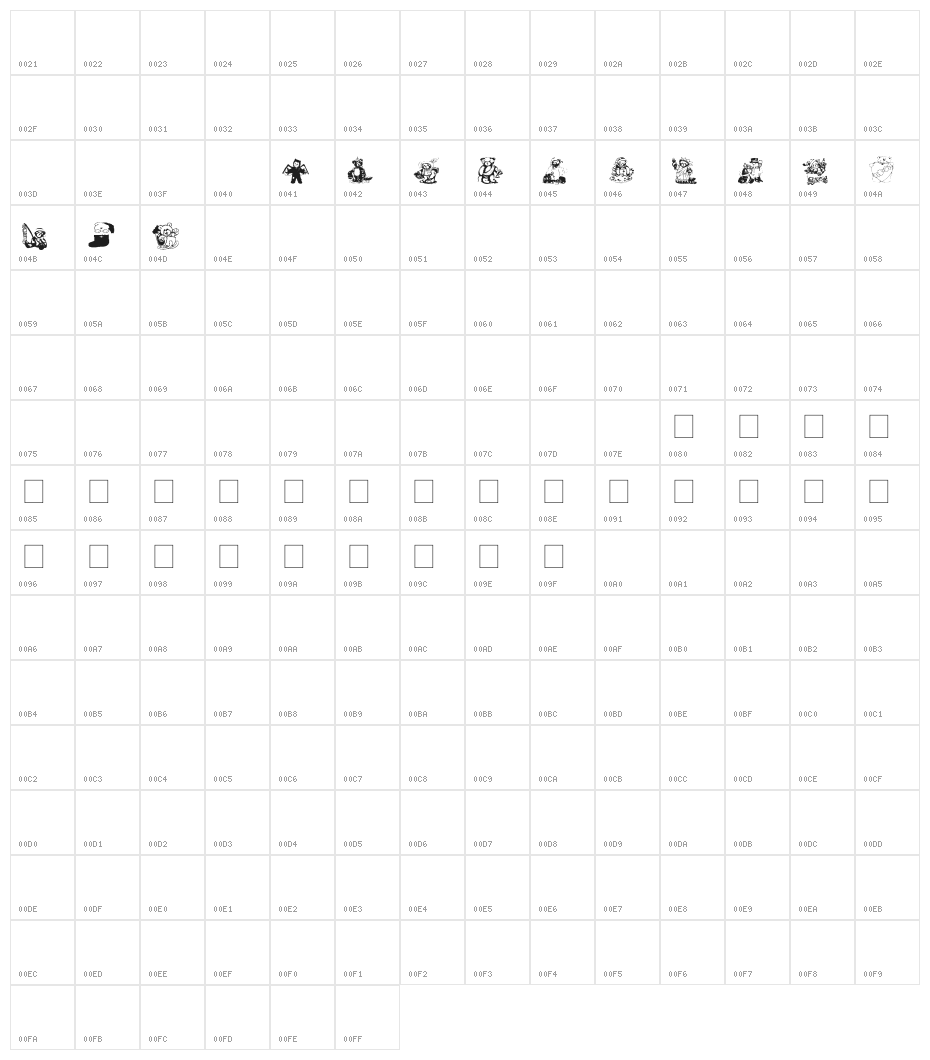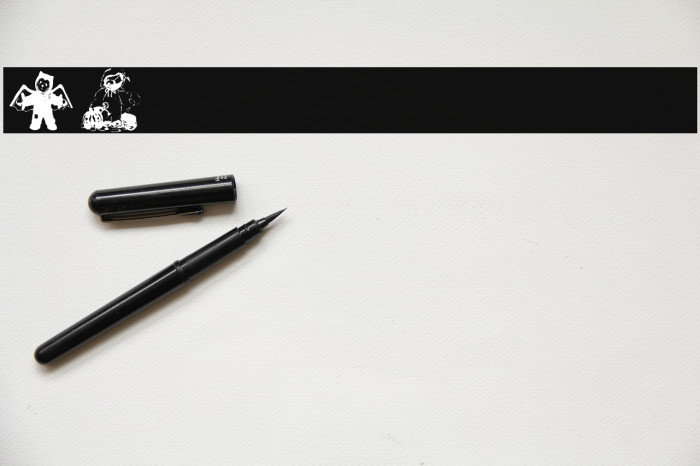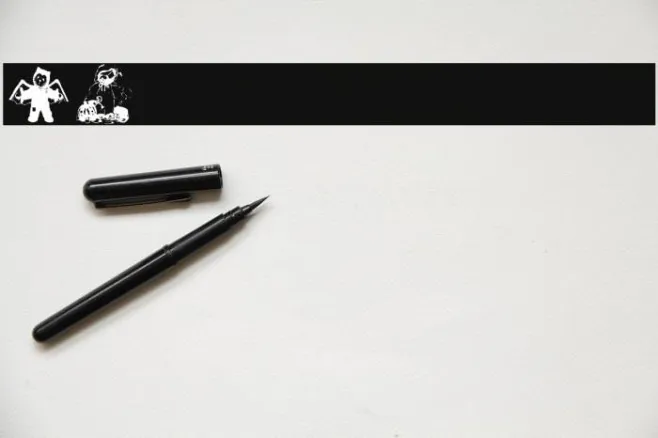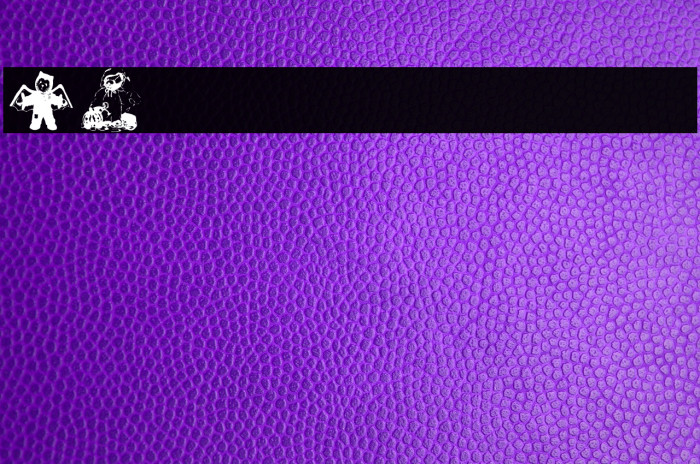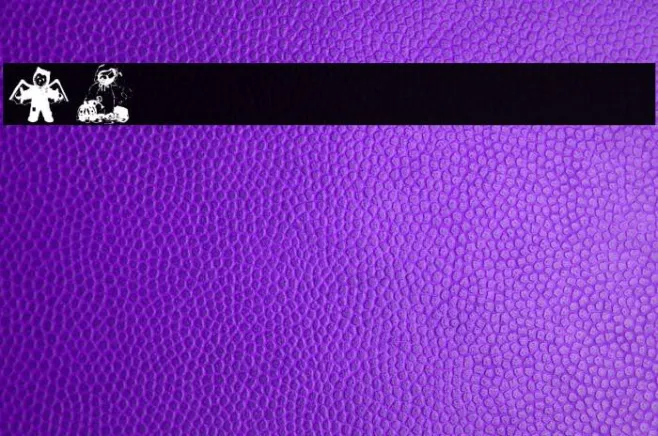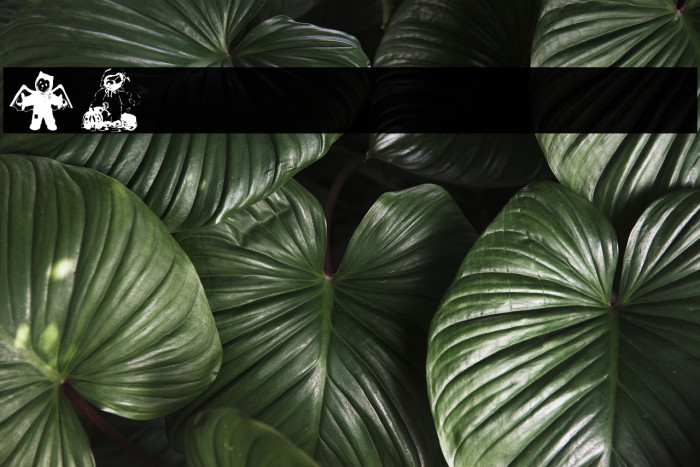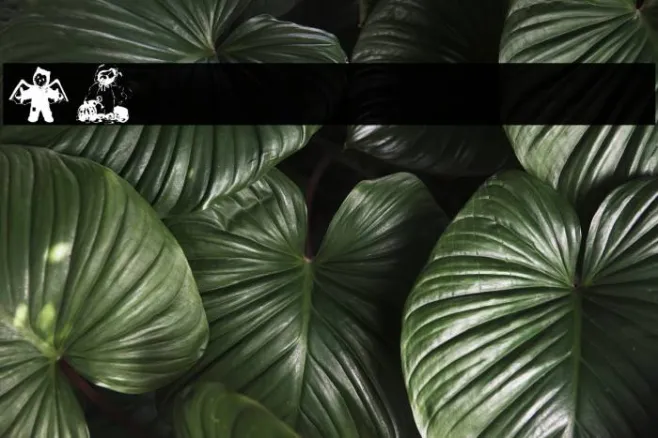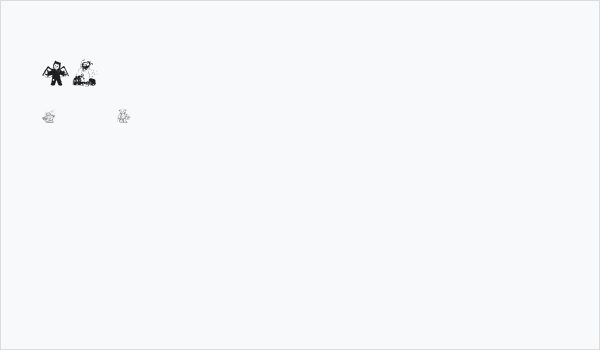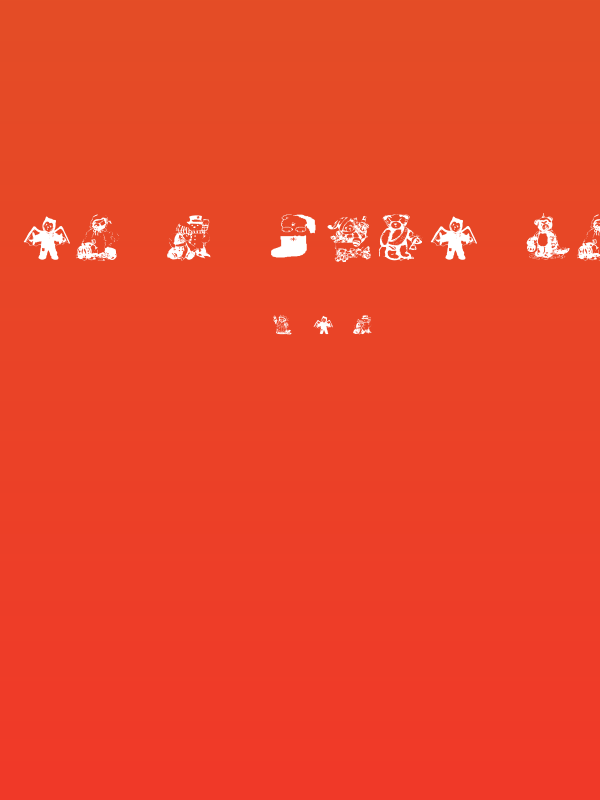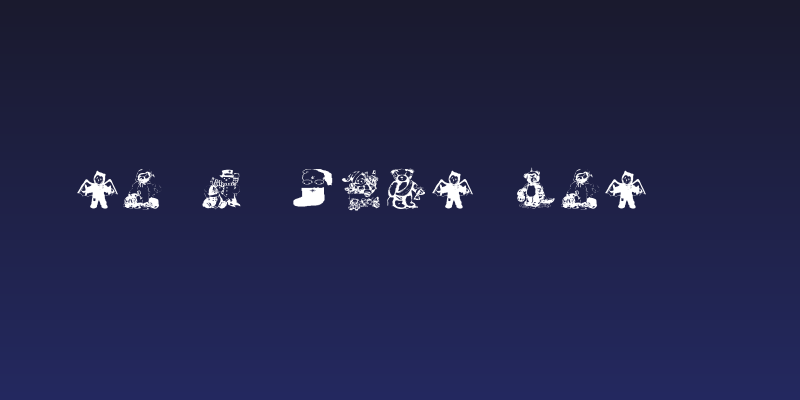
AEZholidaybears Font
AEZholidaybears Description
A decorative dingbat font featuring various holiday-themed bear illustrations, each glyph representing a different festive bear scene or character.
| Overall Style | Decorative, Playful, Thematic |
| Use Case | Decorative elements, Illustrations, Themed graphics |
| Proposed Projects | Greeting cards, holiday invitations, children's crafts, festive scrapbooking, themed party decorations. |